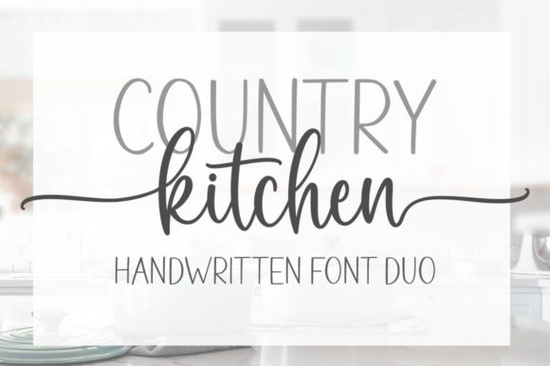
If you’ve been searching for a handwritten font that feels warm, welcoming, and just right for rustic or farmhouse-style projects, the Country Kitchen Font might be exactly what your toolkit needs. It’s not flashy or overly stylized instead, it brings a cozy, cheerful vibe that works beautifully on everything from recipe cards to wedding invites, printable wall art, and even POD t-shirts.
What makes this set special is that it includes two fonts designed to work together seamlessly. You can use them side by side for layered text effects, or pick just one depending on the mood you’re going for. One has a slightly bolder stroke with more personality, while the other is lighter and airier perfect for pairing headers with body copy or creating contrast in your layouts.
Why does PUA encoding matter for crafters?
If you’ve ever downloaded a script font only to find half the swashes or alternate letters are missing, you know how frustrating that can be. The Country Kitchen Font is PUA (Private Use Area) encoded, which basically means all those extra glyphs, ligatures, and decorative tails are ready to use without jumping through hoops. Whether you’re working in Silhouette Studio, Cricut Design Space, or Adobe Illustrator, you’ll have full access to every character variation right out of the box.
This is especially helpful if you’re making:
- Custom quotes for farmhouse signs
- Wedding stationery with elegant flourishes
- Recipe books or food packaging labels
- Printable planners or journals with hand-lettered headers
How does it compare to similar script fonts?
There’s no shortage of script fonts out there, but not all of them feel this intentional. For example, if you like the relaxed flow of Ashley Southine, you’ll appreciate how Country Kitchen keeps that same casual elegance but adds a touch more structure making it easier to read at smaller sizes. Or if you’ve used Front Picture for its quirky charm, you might find Country Kitchen strikes a better balance between playful and polished.
It also holds up well next to fonts like Victory Swing or Soulmate, which lean more romantic or vintage. Country Kitchen sits comfortably in the middle not too formal, not too whimsical. That versatility is why so many small business owners and Etsy sellers keep coming back to it.
A few smart ways people are using it commercially:
- Boutique bakeries for packaging, chalkboard signs, and social media graphics
- Handmade soap or candle brands labeling jars and boxes with a personal touch
- Teachers and homeschoolers designing classroom decor or printable worksheets
- Etsy shop owners bundling quote prints or seasonal SVG files for digital download
What kinds of projects does it work best for?
Think cozy, nostalgic, handmade. This font shines when paired with muted color palettes, textured backgrounds, or natural materials like wood, linen, or kraft paper. It’s great for:
- Farmhouse kitchen signs (“Gather,” “Bake,” “Eat”)
- Seasonal greeting cards (especially fall and winter holidays)
- Menu boards or café chalkboards
- Personalized gift tags or place cards
One tip: avoid using it for long paragraphs. Like most script fonts, it’s meant to be savored in short bursts headlines, titles, or accent text. Pair it with a clean sans-serif (like Montserrat or Lato) for body copy to keep things readable.
Any tips for getting the most out of these fonts?
Absolutely. Here are a few quick tricks:
- Use OpenType features if your software supports it, toggle stylistic alternates to mix up letterforms and avoid repetition.
- Adjust tracking slightly sometimes loosening the letter spacing by 20–50 units helps the swashes breathe.
- Layer with textures overlaying a subtle paper grain or watercolor wash can enhance that handmade feel.
- Try it in all caps surprisingly, Country Kitchen holds up well in uppercase for bold signage or logos.
And don’t forget because you get two complementary styles in one pack, you can create visual hierarchy without switching fonts. Use the bolder version for your main message, and the lighter one for supporting text or decorative accents.
Pro tip: If you’re prepping files for cutting machines, convert your text to outlines first. That way, you won’t run into missing glyph issues later.
Ready to try it?
If you’re already browsing Creative Fabrica, take a minute to preview how Country Kitchen looks with your own words. Most listings include a live text generator type in your phrase and see how the swashes connect. It’s the easiest way to know if it’s the right fit before you download.